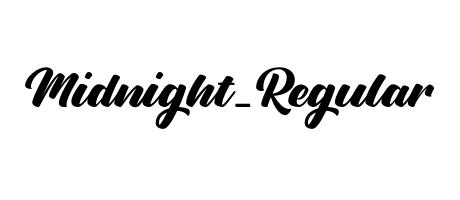
Midnight
By Letterflow Studio
Midnight-Regular is a stylish, italic script font. Its flowing curves and slightly condensed letters create a sense of elegance and sophistication. The consistent weight and smooth strokes give it a classic feel, perfect for headings, logos, or anywhere a touch of retro charm is desired. The slight flourish on the "g" adds a delicate, whimsical touch.